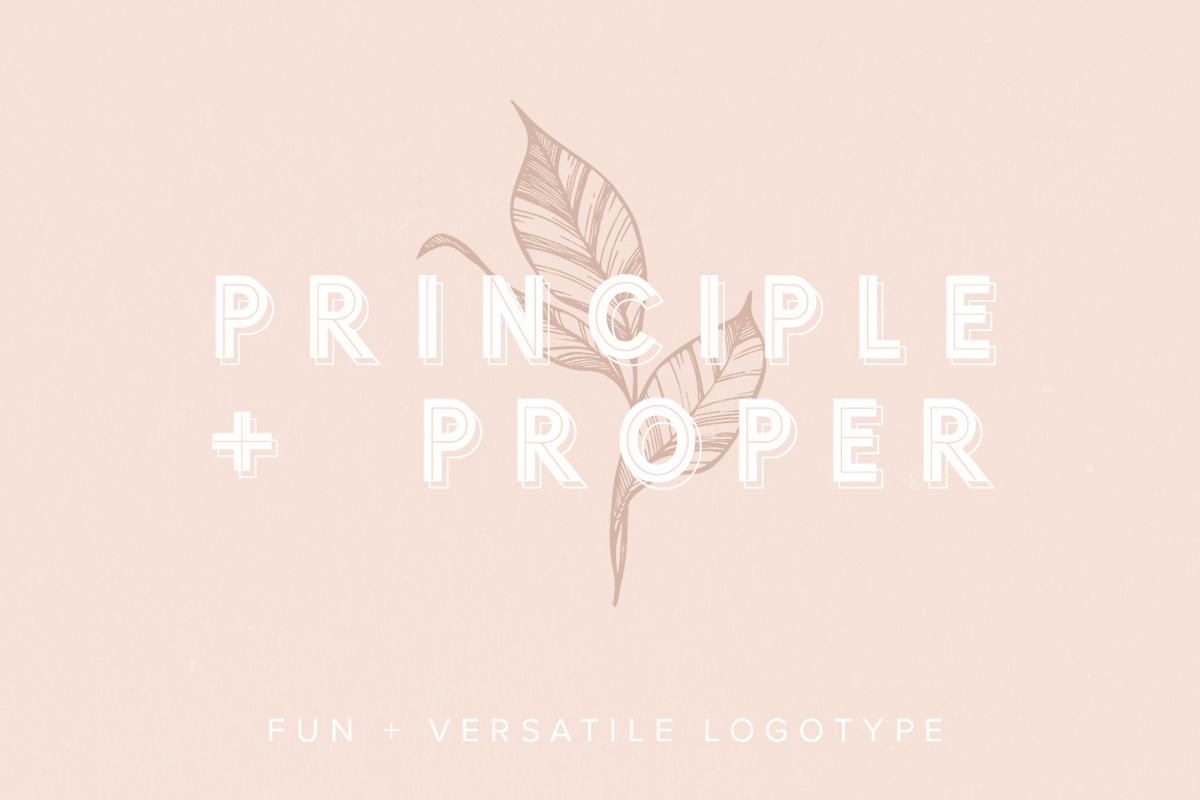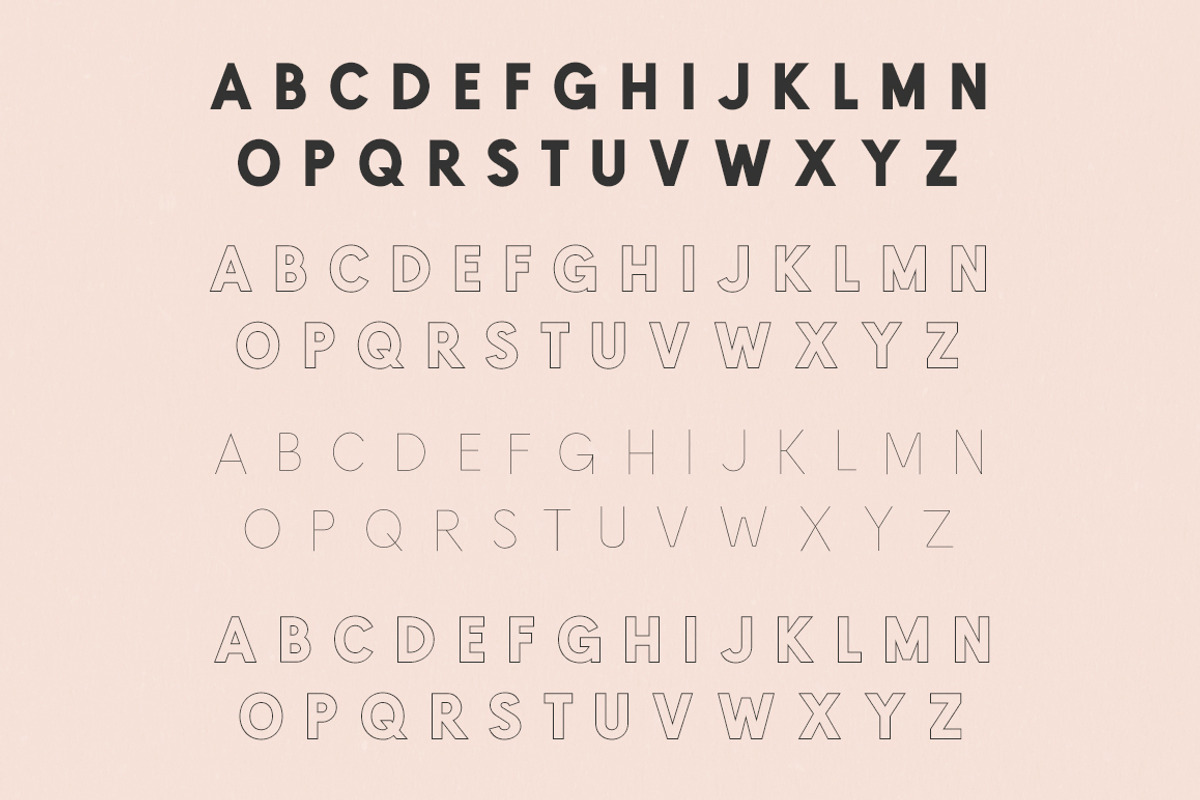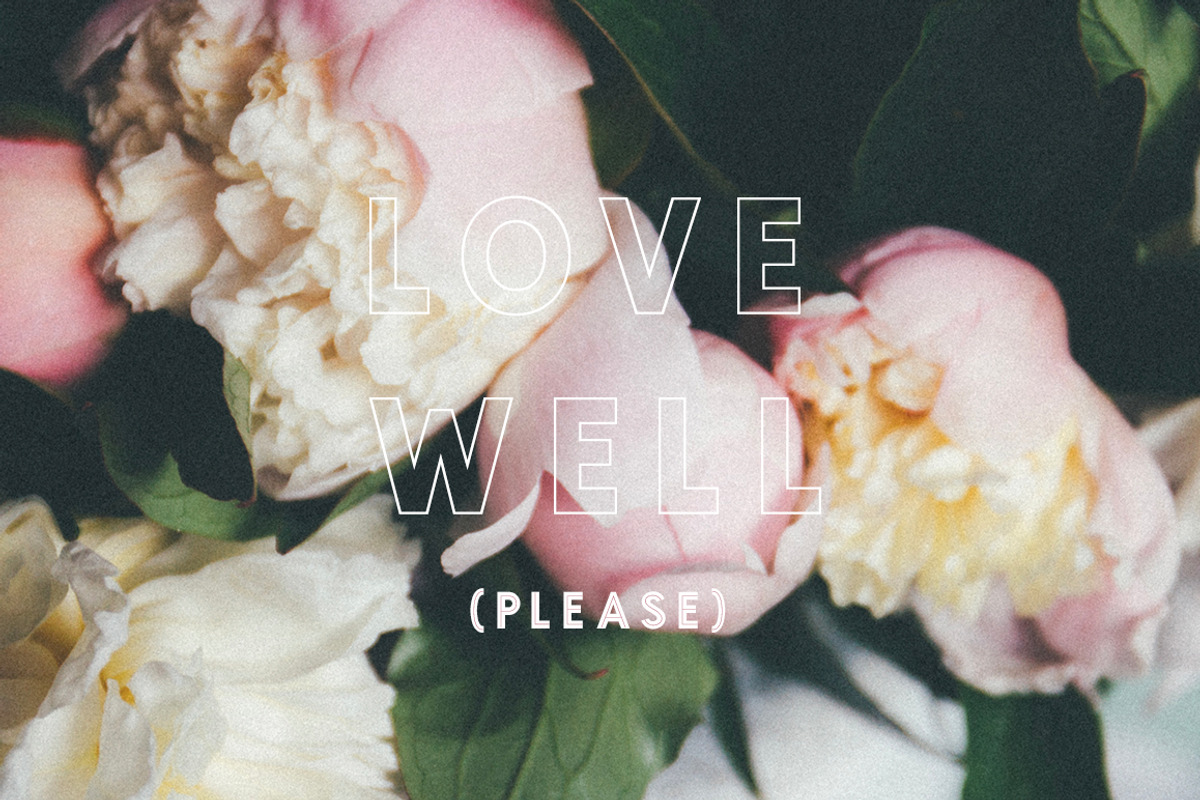
Ontario Font
Ontario is a super playful all-caps font set that is perfect for creating logos, headers, and really modern unique graphics. More narrow than Tokyo, Ontario offers a bit more of a sleek look while also enabling you to create even more stylistic combinations.
This is a set of four separate typefaces. When combined, they create the look featured in the cover image, but can be mixed and matched as shown in the sample images.
These files are separate so that you retain full control over your color palette (pretty cool!), and can be altered on top of one another to create the look.
The cover image is layered like this: Outline Offset, Regular, Inline, Outline. The “Principle + Proper” sample is the same, just without the final Outline layer.